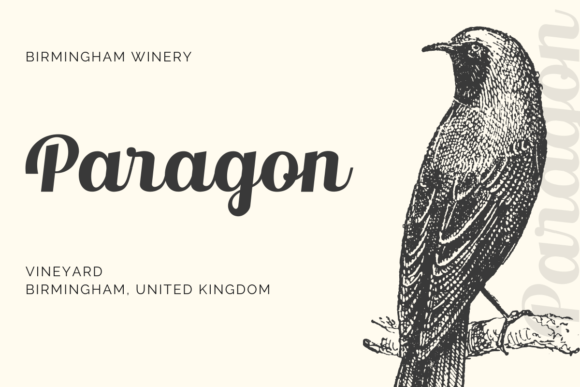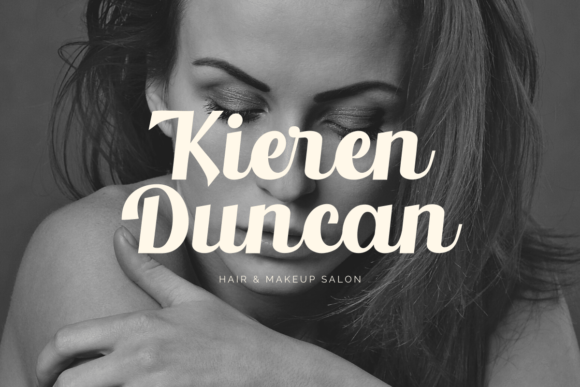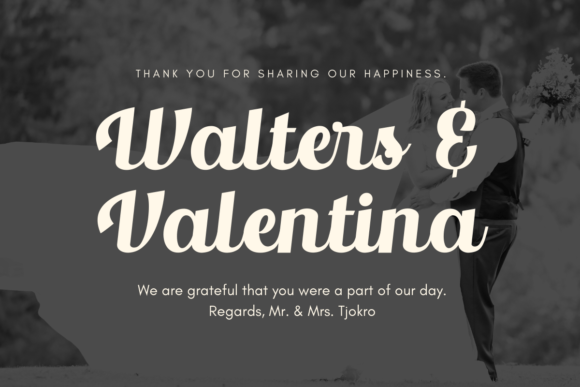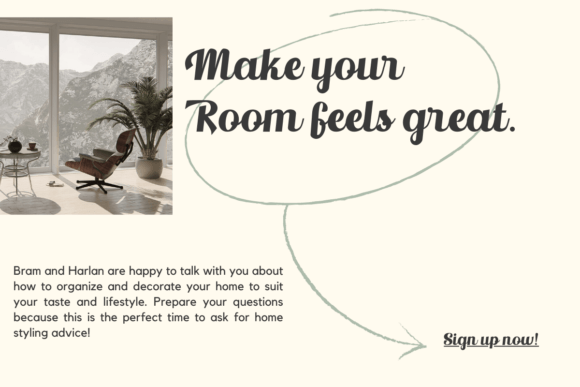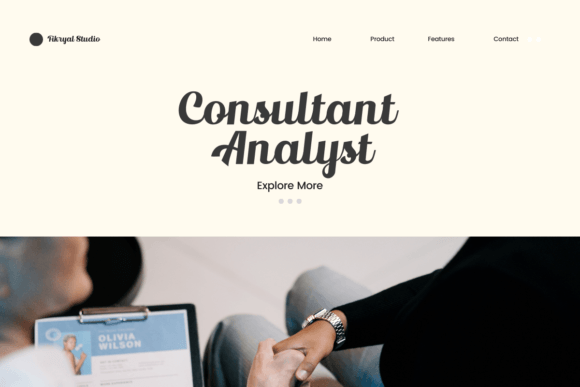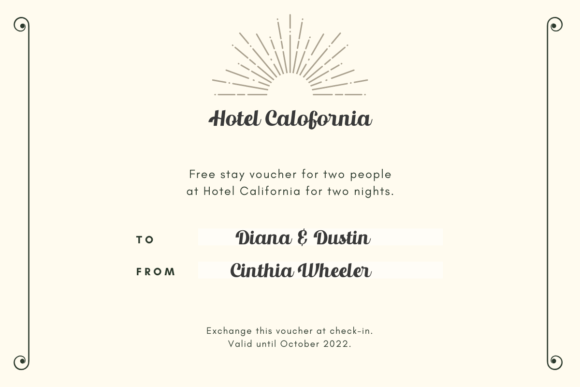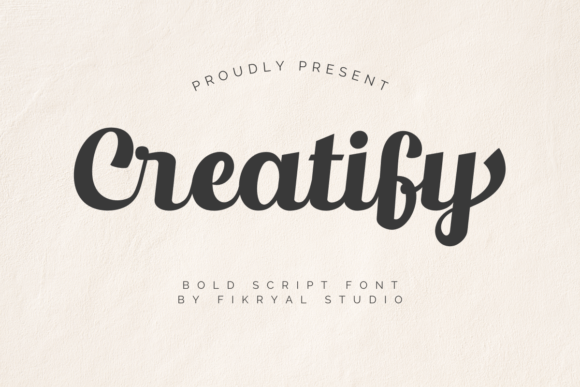
Creatify Font: Elevate Your Designs with a Beautiful and Bold Handwritten Style
Are you a designer or crafter looking for a unique and eye-catching font to take your projects to the next level? Look no further than Creatify Font, a stunning handwritten font that’s perfect for a wide range of applications. In this article, we’ll dive into the features and benefits of Creatify, and explore how it can help you create stunning designs that stand out from the crowd.
A Beautiful and Bold Handwritten Font
Creatify Font is a beautiful and bold handwritten font that’s designed to make a statement. Its unique and elegant style is perfect for adding a touch of personality to your designs, whether you’re working on a logo, branding project, or social media post. The font’s bold and confident appearance makes it ideal for headlines, titles, and other display text, while its flowing script style adds a touch of sophistication and elegance.
One of the best things about Creatify Font is its versatility. This amazing font can be used for a wide range of applications, including:
- Logos and branding: Create a lasting impression with a custom logo that showcases your brand’s personality and style.
- Titles and headlines: Add a touch of drama and flair to your titles and headlines with Creatify’s bold and elegant style.
- Social media posts: Stand out on social media with eye-catching graphics and posts that showcase your brand’s unique voice and style.
- Advertisements: Create stunning ads that grab attention and drive results with Creatify’s bold and confident appearance.
- Product packaging: Add a touch of personality to your product packaging with custom labels and designs that showcase your brand’s style.
- Product designs: Create stunning product designs that showcase your brand’s unique voice and style.
- Labels: Create custom labels that add a touch of elegance and sophistication to your products.
- Photography: Add a touch of drama and flair to your photography with custom watermarks and overlays.
- Special events: Create stunning invitations, programs, and other materials for special events like weddings, conferences, and more.
- Magazines: Add a touch of elegance and sophistication to your magazine designs with Creatify’s flowing script style.
- Web design: Create stunning websites that showcase your brand’s unique voice and style with Creatify’s bold and elegant font.
One of the best things about Creatify Font is that it’s PUA encoded, which means you can access all of the glyphs and swashes with ease. This makes it easy to customize your designs and add a touch of personality to your text. With Creatify, you can easily access a wide range of glyphs and swashes, including:
- Alternate characters: Add a touch of uniqueness to your designs with alternate characters that offer a range of stylistic options.
- Swashes: Add a touch of drama and flair to your designs with custom swashes that can be used to connect letters and words.
- Ligatures: Create stunning ligatures that add a touch of elegance and sophistication to your designs.
Why Choose Creatify Font?
So why choose Creatify Font for your next design project? Here are just a few reasons why this amazing font stands out:
- Unique and eye-catching style: Creatify Font offers a unique and eye-catching style that’s perfect for designers and crafters who want to stand out from the crowd.
- Versatility: This amazing font can be used for a wide range of applications, from logos and branding to social media posts and web design.
- PUA encoded: With PUA encoding, you can easily access all of the glyphs and swashes you need to customize your designs.
- Elegant and sophisticated: Creatify Font offers an elegant and sophisticated style that’s perfect for adding a touch of personality to your designs.
In conclusion, Creatify Font is a stunning handwritten font that’s perfect for designers and crafters who want to take their projects to the next level. With its unique and eye-catching style, versatility, and PUA encoding, this amazing font is sure to become a favorite in your design arsenal. So why wait? Download Creatify Font today and start creating stunning designs that showcase your brand’s unique voice and style!